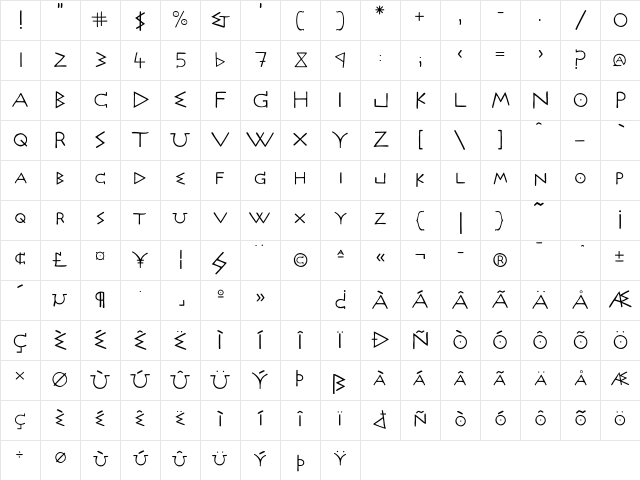
AcropolisNow Roman Free Font
AcropolisNow Roman
Design Context for AcropolisNow
AcropolisNow is a composed and adaptable typeface that performs quietly and consistently across a wide range of design contexts.